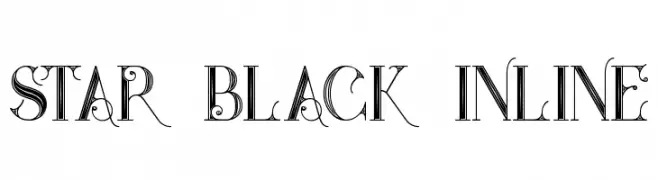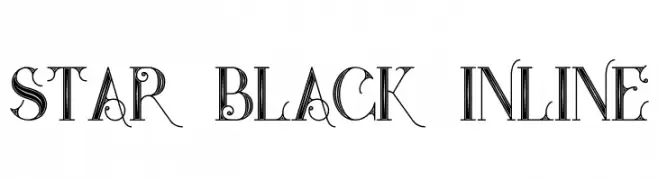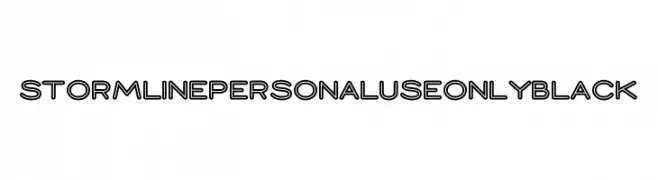
A bold, geometric font with outlined characters and a modern, futuristic style.
An ornate and decorative font with intricate inline detailing and swirling embellishments.
An ornate and decorative font with intricate inline details and flourishes.
A bold, futuristic font with geometric, blocky characters and rounded corners.
A bold, geometric font with a three-dimensional layered outline effect.
A bold, decorative font with a vintage, rugged style.
A bold, rounded font with a modern and playful style.
A bold, modern outline font with a double-line structure and geometric design.